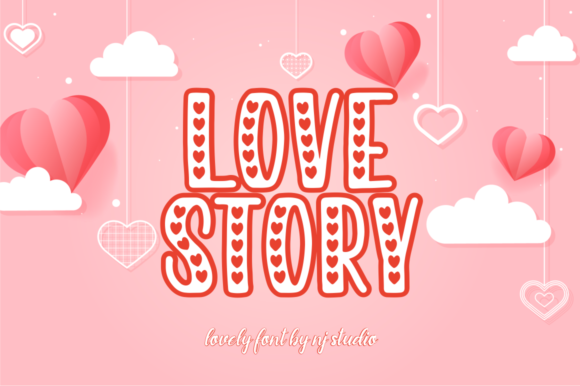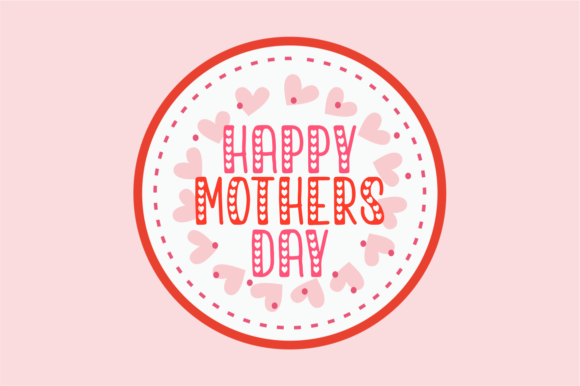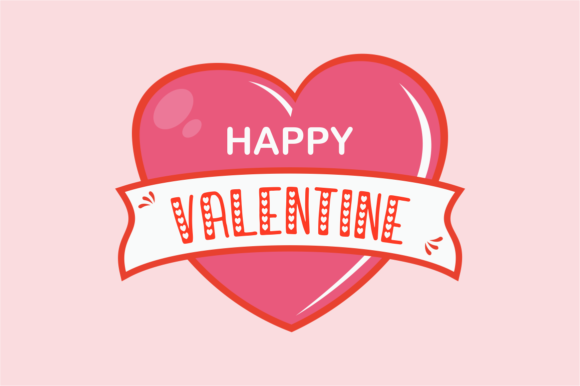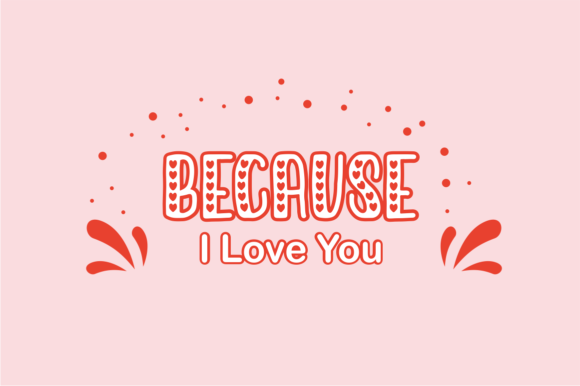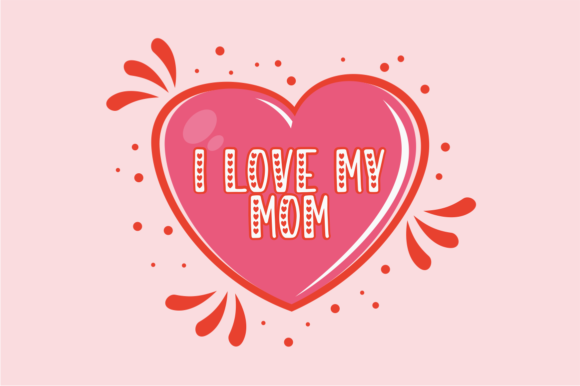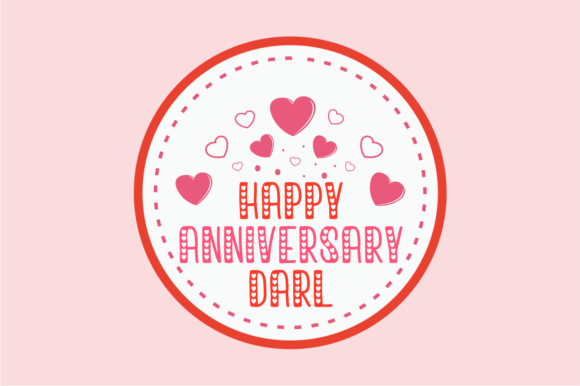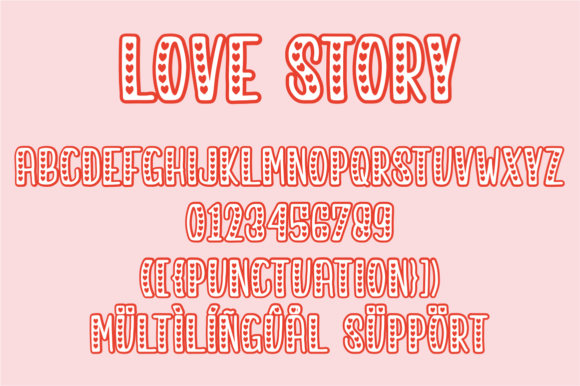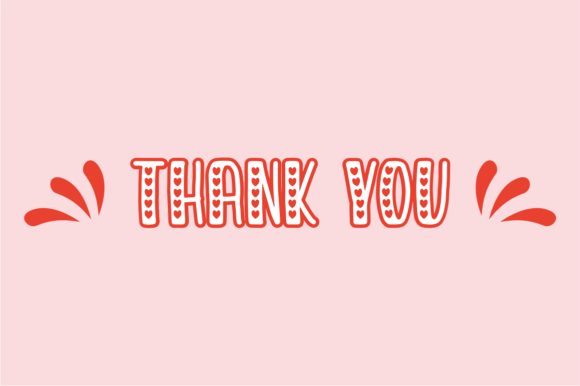
Love Story Font
About Love Story Font
Love Story simplifies elegance into one truly outstanding handwritten font. This font will look outstanding in any context, whether it’s being used on busy backgrounds or as a standalone headline!